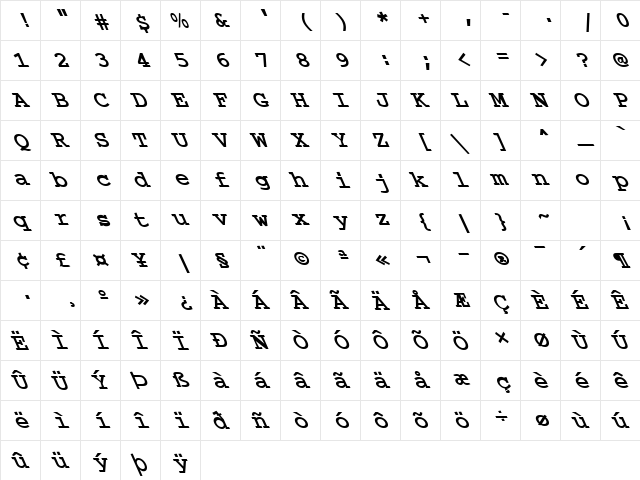
FZ DIGITAL 3 LEFTY Bold
Design Context for FZ DIGITAL 3 LEFTY Typeface
FZ DIGITAL 3 LEFTY channels digital-age aesthetics through its sharp, structured letterforms — ideal for brands that want to signal innovation. Its bold stroke weight gives it real presence on the page.
Pro Tip: Use FZ DIGITAL 3 LEFTY in combination with a neutral sans for body text. Let it define the brand voice in headlines while keeping reading comfortable elsewhere.